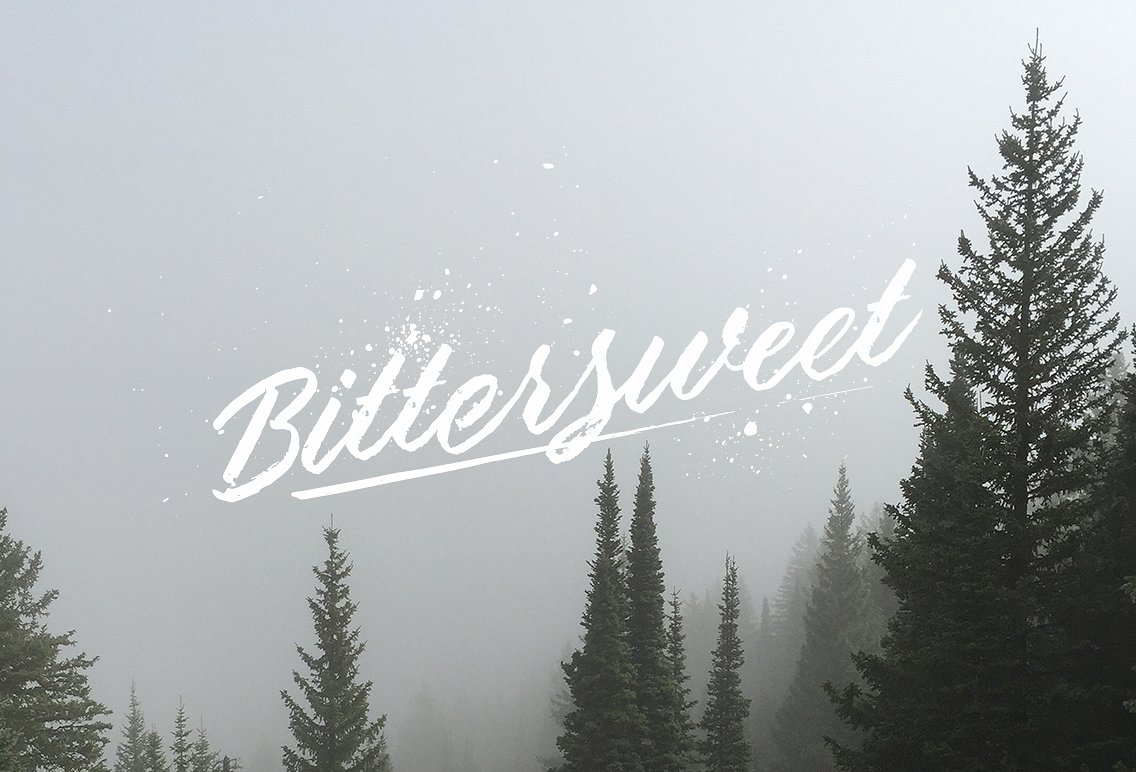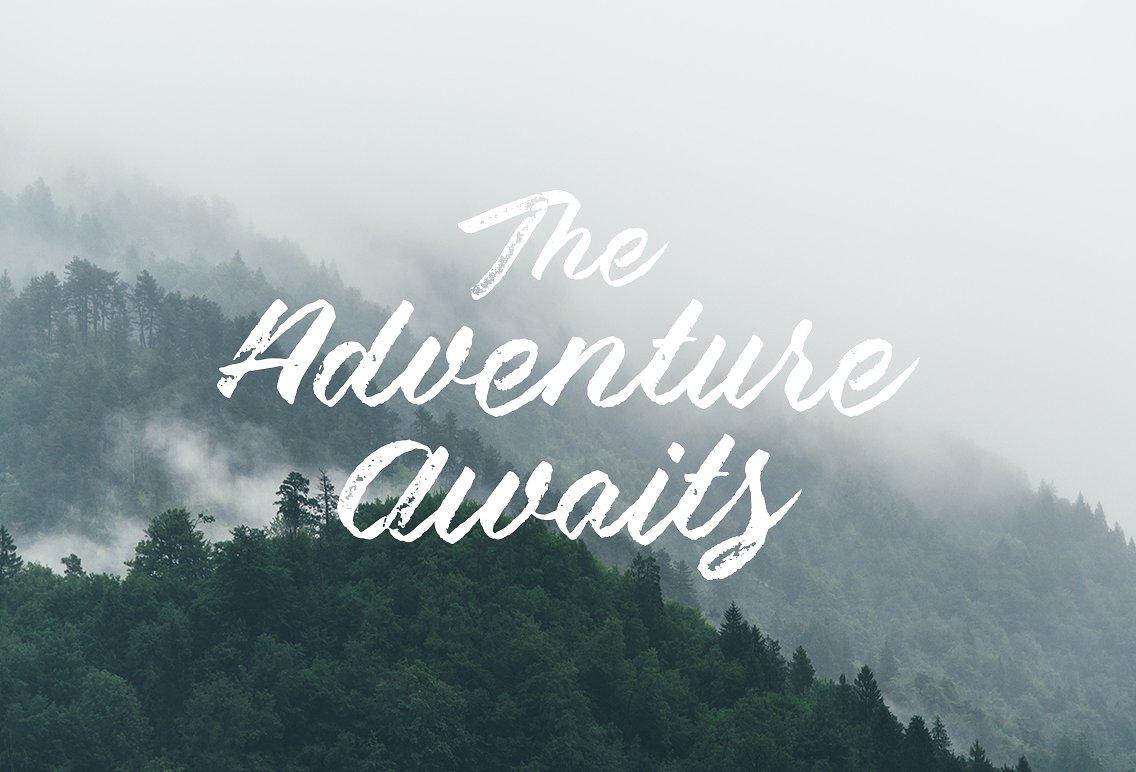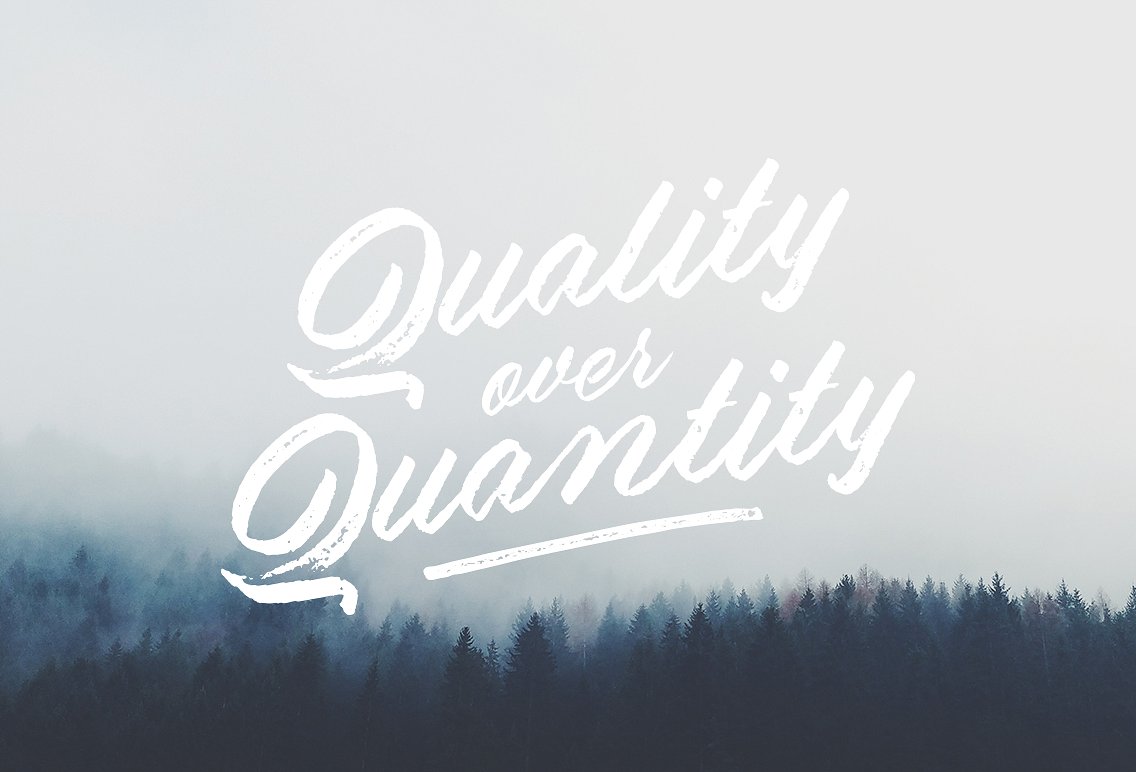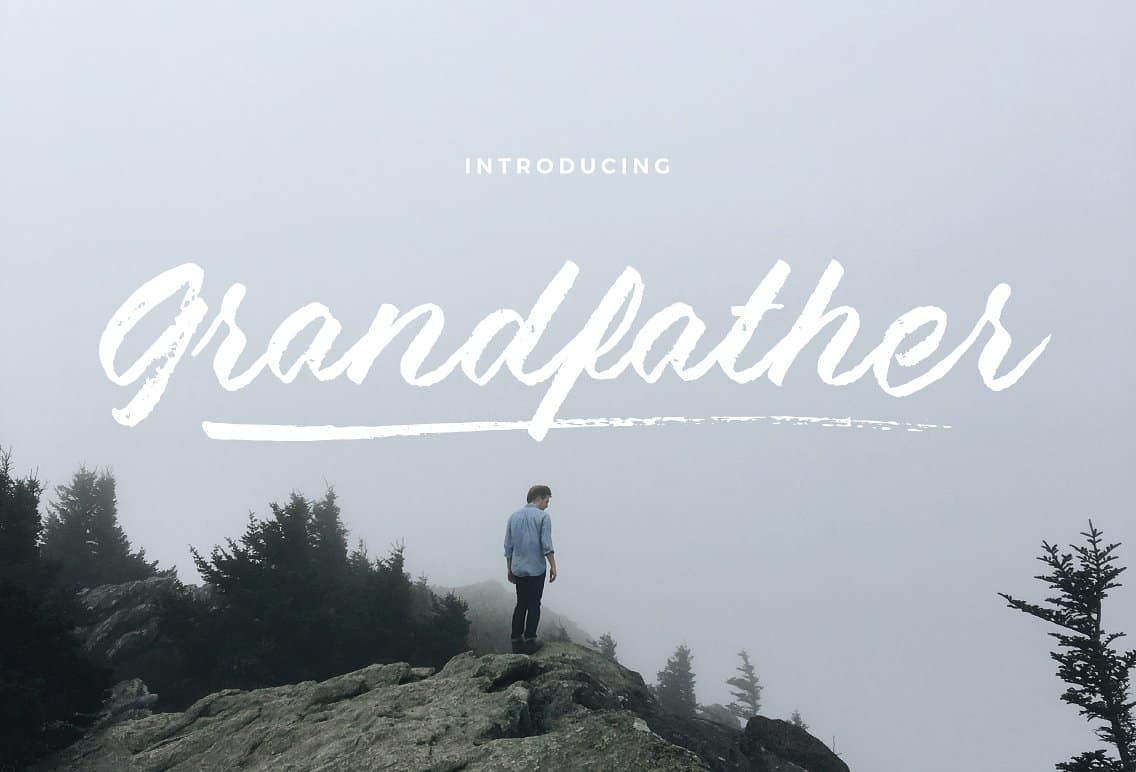
Grandfather Brush Script Font
Introducing Grandfather Font. It is designed by 1871 Project, this is a premium font, are sold on creativemarket, but it was great, it is free today for download. Grandfather Brush Script Fontis a handwritten brush script font. It takes inspiration from Grandfather Mountain in North Carolina. (it’s also named after it!) Featuring a somewhat bouncy baseline and flowy connections, it gives your designs a truly handcrafted feel. Perfect for use in branding, packaging, headers, print, web etc.